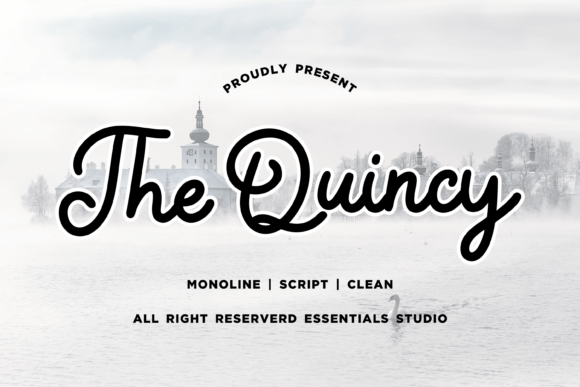
Behold, The Quincy Font – A Masterpiece of Elegance and Allure!
Unleash your creativity with The Quincy Font, a breathtaking script font that exudes grace and elegance. Each letter, meticulously crafted by the talented designers at Essentials Studio, dances across the page with a fluidity that is unmatched. Dive into a world of boundless possibilities and let your imagination soar as you transform your designs into masterpieces.
The Quincy Font: A Symphony of Style and Sophistication
With its delicate strokes and flowing curves, The Quincy Font adds a touch of refinement to your designs. Whether you're creating a sports poster, a wedding invitation, or a brand logo, this font is guaranteed to make a lasting impression. Its versatility knows no bounds, allowing you to effortlessly elevate any project and leave your audience captivated.
Step into a Realm of Enchantment with The Quincy Font
Prepare to be mesmerized as The Quincy Font takes you on a journey through a world of enchantment and intrigue. Its unique feel and stunning impact will transform your designs into captivating works of art. Let your creativity run wild as you explore the infinite possibilities that await you with this extraordinary font.
The Quincy Font: The Perfect Companion for Your Creative Endeavors
Whether you're a seasoned designer seeking a touch of elegance or a budding artist ready to make your mark, The Quincy Font is the perfect companion for your creative endeavors. Let its beauty and grace inspire you to create designs that resonate with your audience and leave them in awe. Prepare to witness the transformation as your projects take on a new life, exuding a charm that is both alluring and unforgettable.